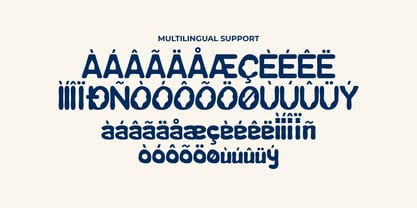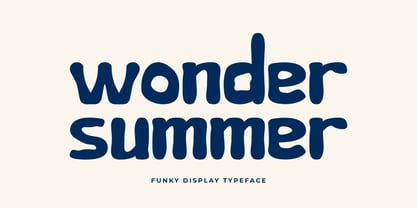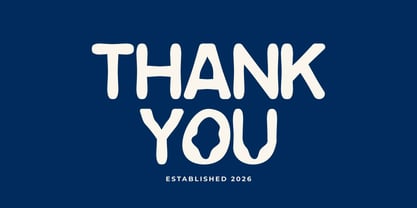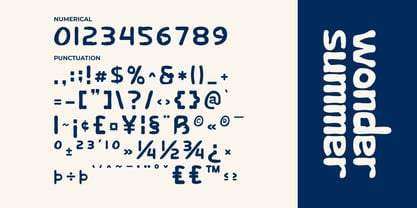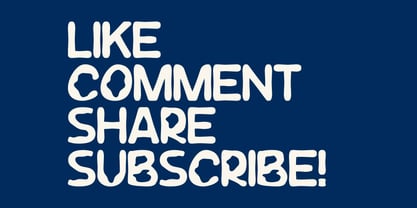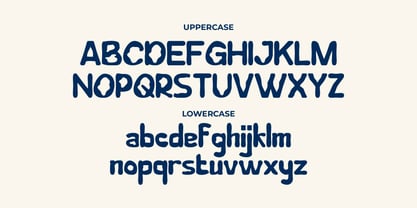
Wonder Summer
par Artiveko
La famille de polices Wonder Summer a été conçue par Iwan Alwan et publiée par Artiveko. Wonder Summer contient 2 styles et options de package familial. En savoir plus sur cette famille
Wonder Summer is a vibrant display typeface inspired by sunny days, tropical adventures, and carefree summer vibes. With its bold curves, playful letterforms, and expressive characters, Wonder Summer infuses warmth, energy, and fun into every design. This typeface is ideal for summer campaigns, beach events, travel promotions, lifestyle branding, food packaging, music festivals, children's products, posters, merchandise, and social media content, creating cheerful visuals that capture attention. Its bold display style ensures headlines pop while maintaining excellent readability and a friendly personality. Whether you're crafting a tropical brand, designing a colorful festival poster, or producing vibrant marketing materials, Wonder Summer adds an energetic and joyful touch that brings every project to life. More than just a typeface, Wonder Summer celebrates sunshine, creativity, and unforgettable summer memories.
Concepteurs: Iwan Alwan
Fonderie: Artiveko